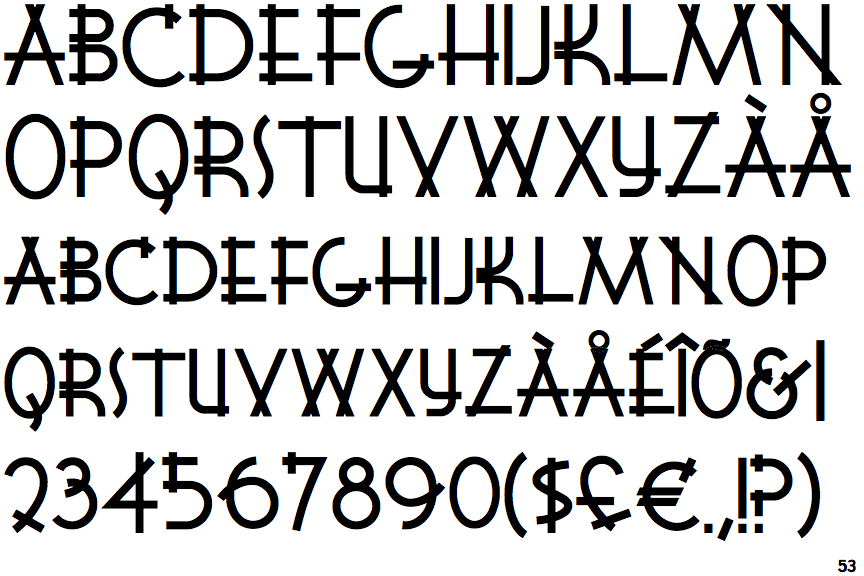
Wigwam NF
Based on a typeface in the 1933 book "Lettering of Today" by W. Ben and Ed C. Hunt.
Designer: Nick Curtis Year: 2001 Publisher: Nick's Fonts |
The bar of the upper-case 'A' crosses both verticals.